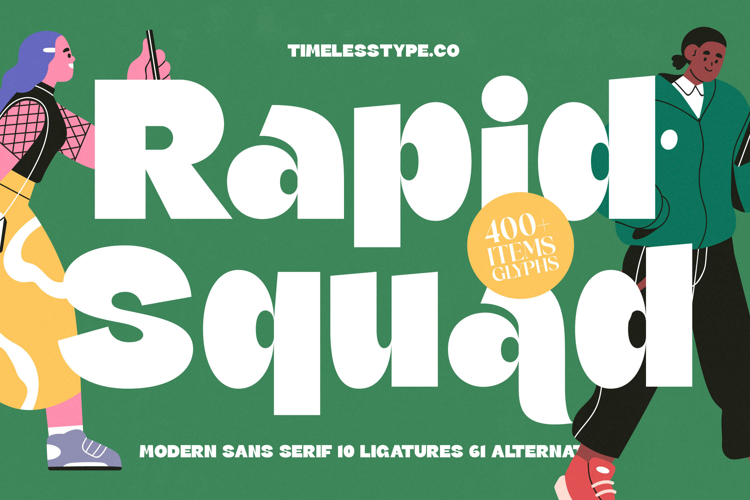
Rapid Squad - Modern Sans Serif Font
Discover the typeface that redefines contemporary design with its undeniable impact and bold personality. Rapid Squad - Modern Sans Serif Font stands out as a paramount choice for creators seeking a fresh, energetic, and highly legible visual language. Its inherent modern aesthetic commands attention, ensuring your message is not just seen, but remembered, establishing a strong visual identity.
Crafted with precision, Rapid Squad - Modern Sans Serif Font boasts a unique blend of robust structure and appealing curves, creating a harmonious balance perfect for diverse applications. The thoughtful design, including 10 ligatures and 61 alternates from its 400+ glyph set, offers immense creative flexibility, allowing designers to imbue projects with truly distinctive character and a professional finish.
Expand your brand's reach effortlessly across the globe with unparalleled linguistic adaptability. With its extensive multilingual support, Rapid Squad - Modern Sans Serif Font adapts seamlessly across global markets, making it incredibly versatile for international projects. This ensures your designs maintain their intended impact and professionalism, regardless of the language or region.